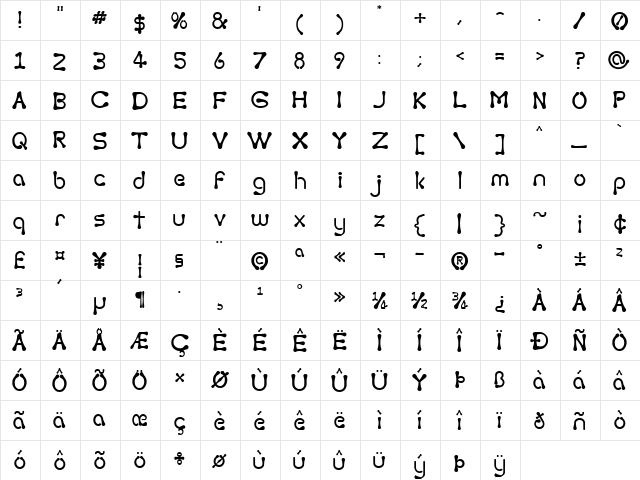
Torcing Away 2000 Regular
Design Context for Torcing Away 2000 Typeface
Torcing Away 2000 takes a measured approach to typography — its balanced proportions and neutral character make it a reliable workhorse for both digital and print work.
Pro Tip: Use Torcing Away 2000 in both headline and body roles to test its range before committing to a single application.